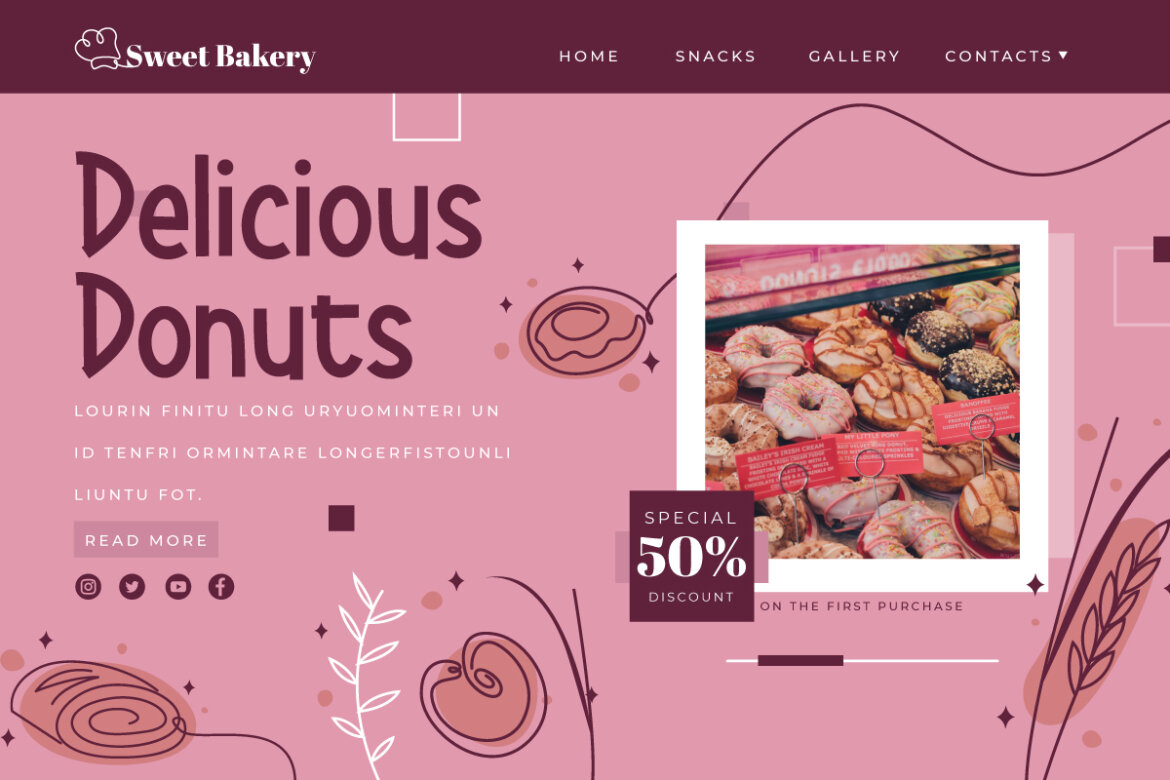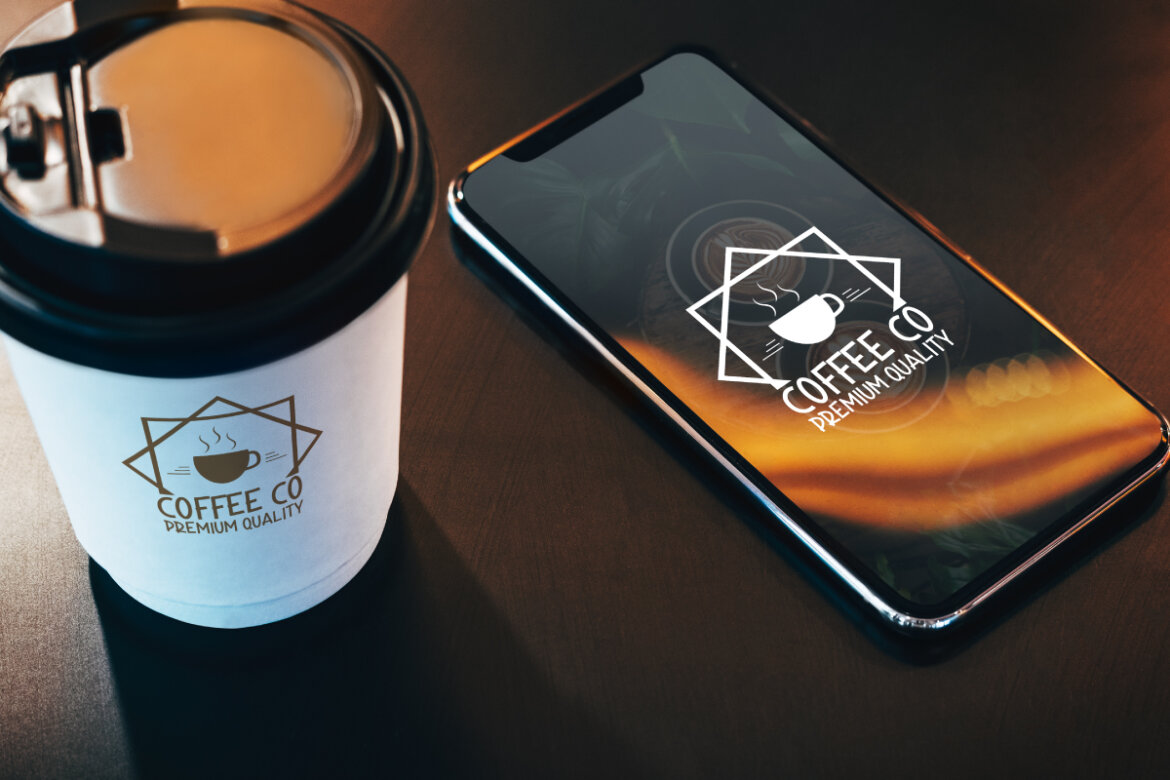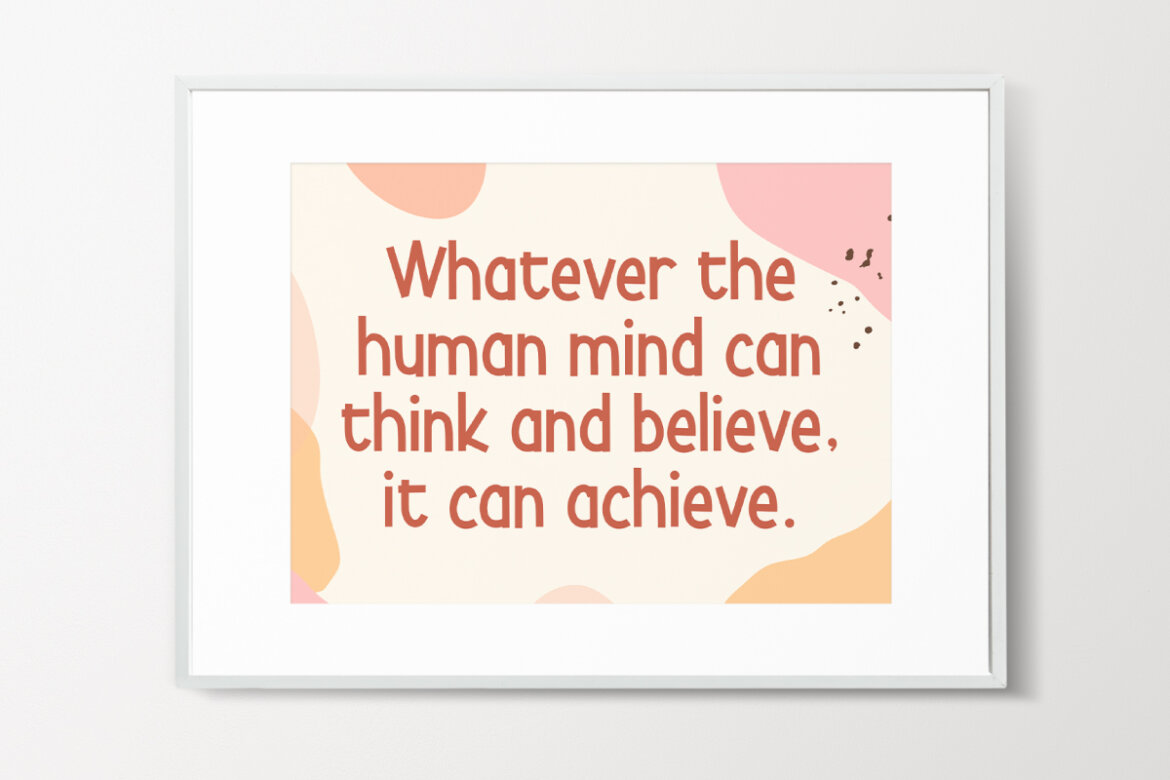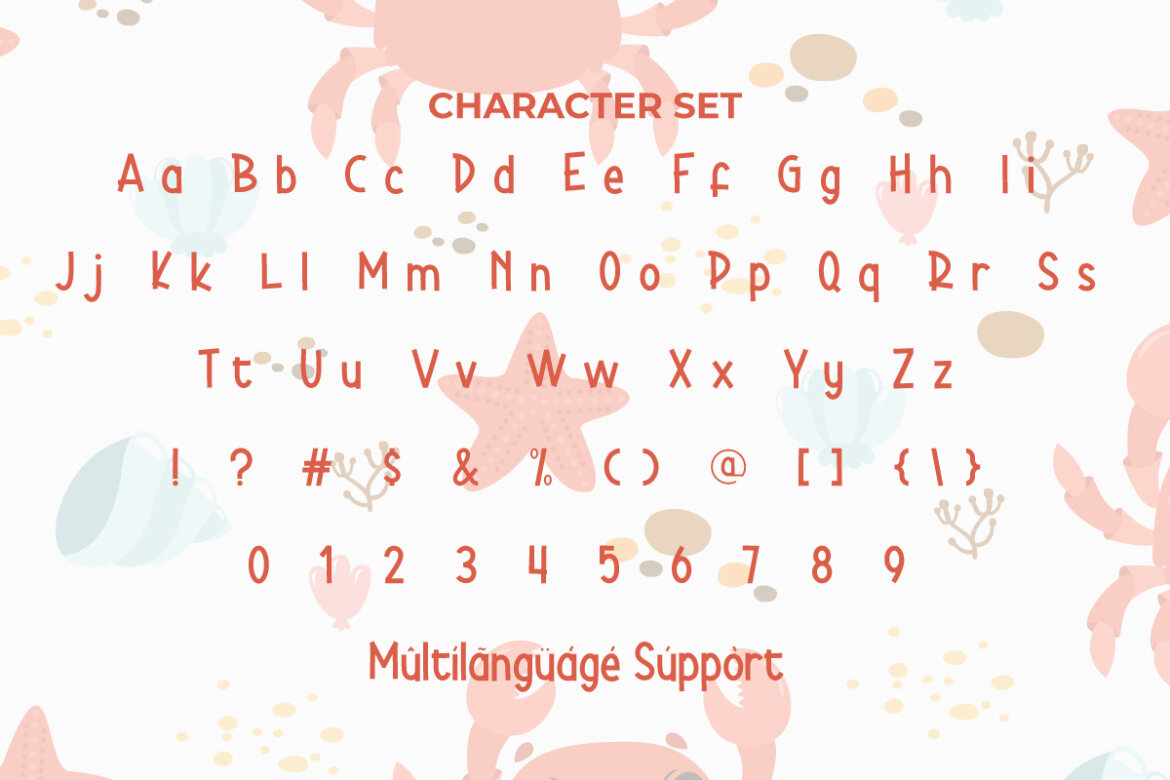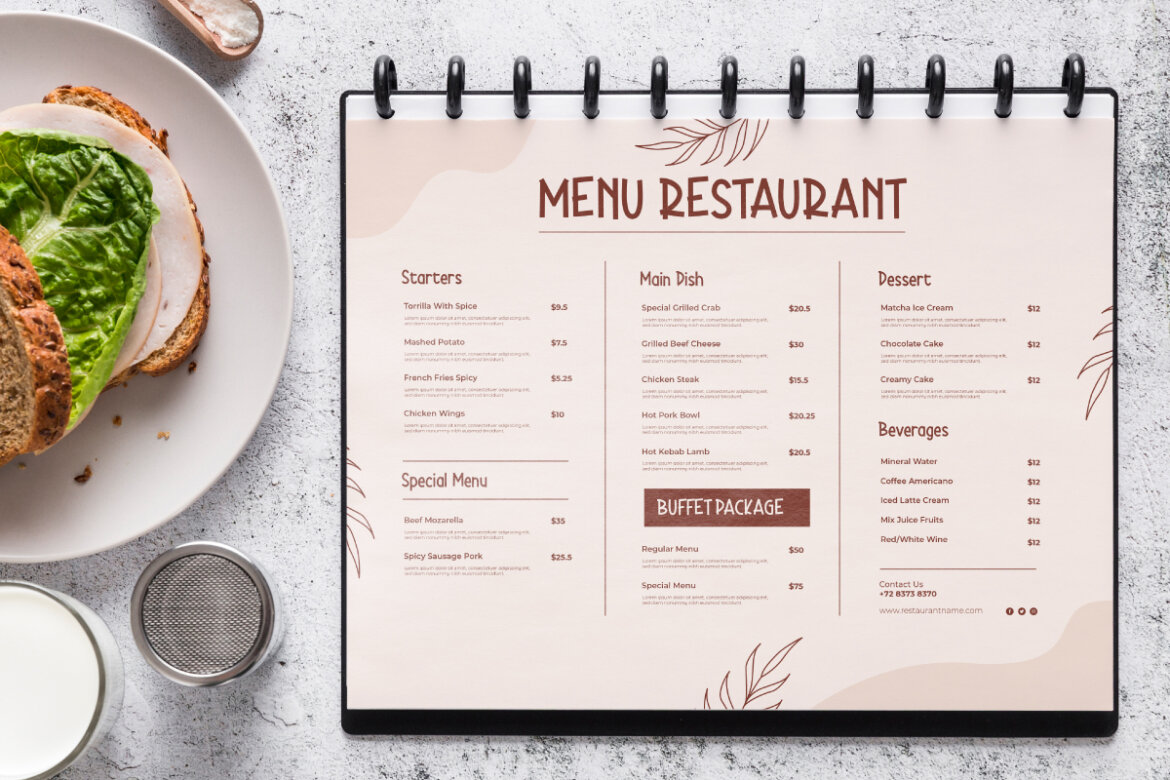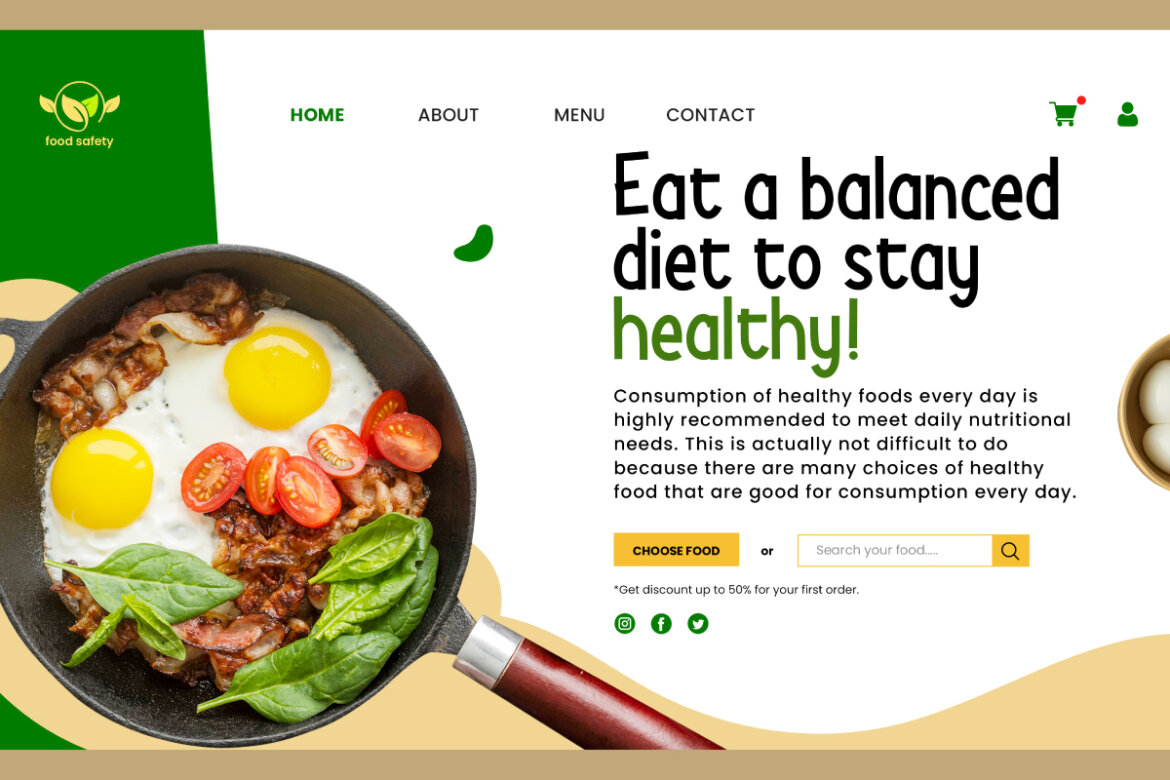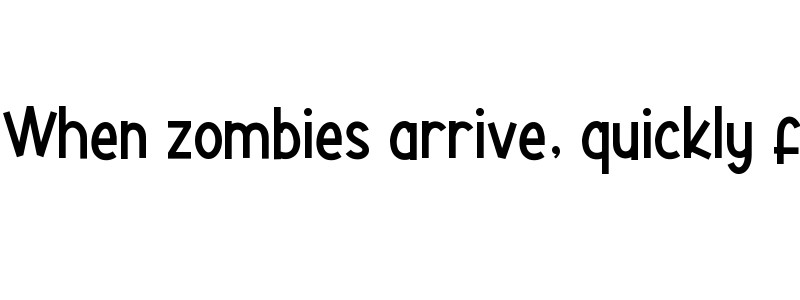
Crabwise preview
Crabwise
Crabwise Font is an eye-catching display font full of playfulness. Designed with a cute and fun theme, it comes with an appearance that is beautiful and modern in its own way. Perfect for app views, birthday invitations, business card, covers, header, logos, menus, mockup, product packaging, quotes, stickers, summer designs, t-shirt designs, title, websites, and much more.
Crabwise Font is inspired by the bouncy font style but the difference is that this one is slimmer and taller. It will look cool for whatever creative design you have. Use this font for apparel, baby clothing, birthday parties, cafeteria, crafts, florist, food franchise, gardener, graphic design, healthy snacks, holidays, photography, restaurant, school, toys, vacations, and so on.
Crabwise Font comes with a complete set of Uppercase and Lowercase Basic Characters, Number, a large range of Punctuation, and Symbol. It is supported with multilingual characters and ready to use both on Windows machine or Mac with simple installations. It’s tested to work well in the Adobe Apps (Illustrator, Adobe InDesign, Adobe Photoshop) CorelDraw, and others. PUA Encode Characters means you can access all the characters easily – Fully accessible without additional design software.